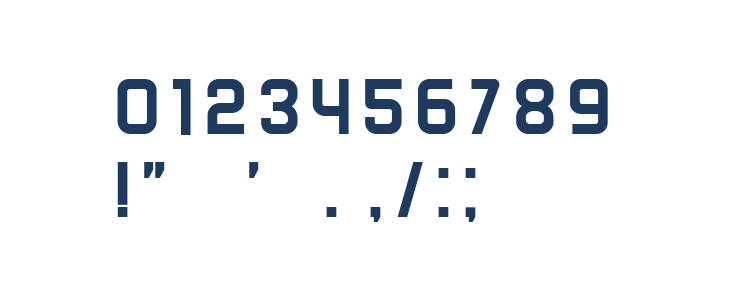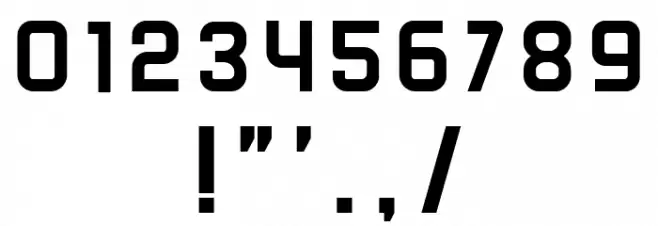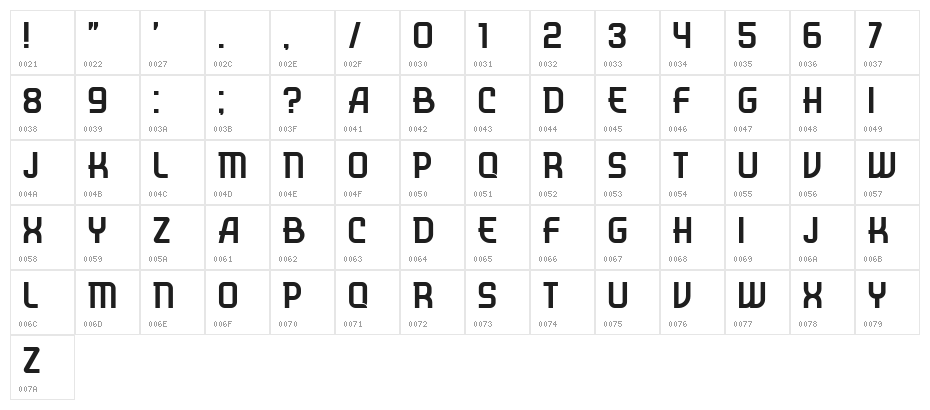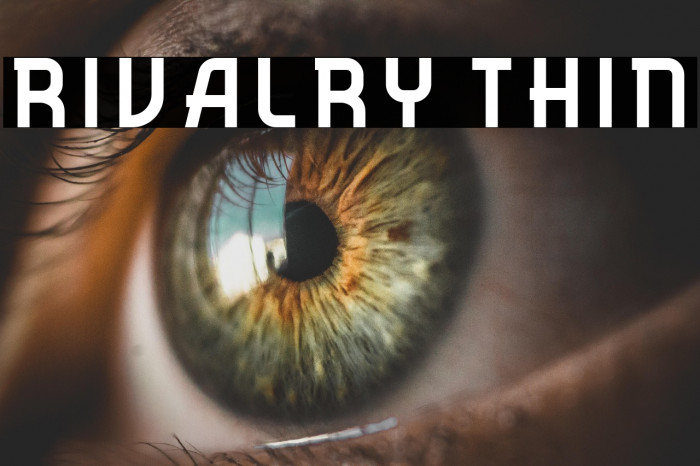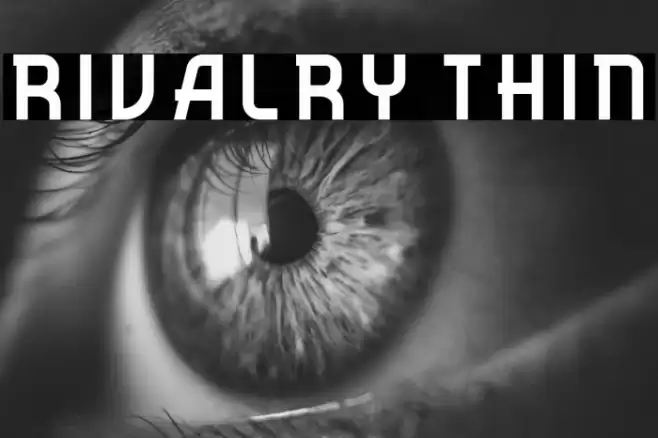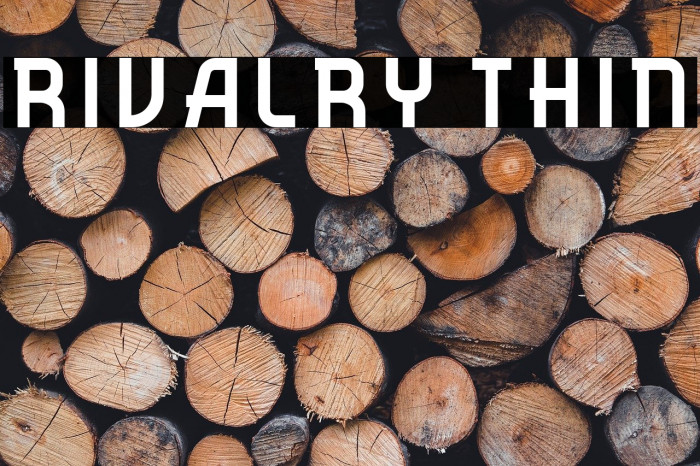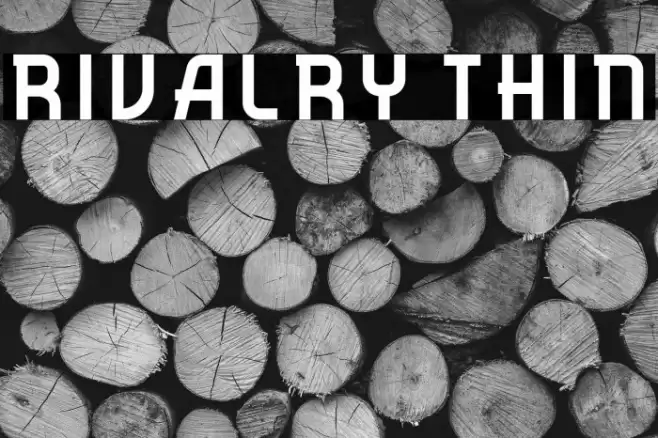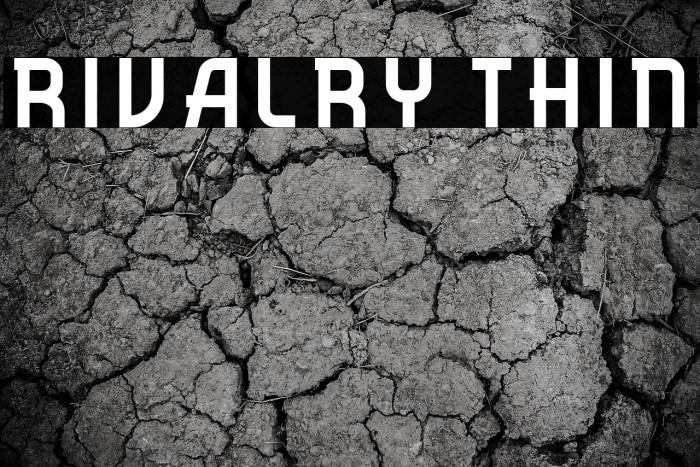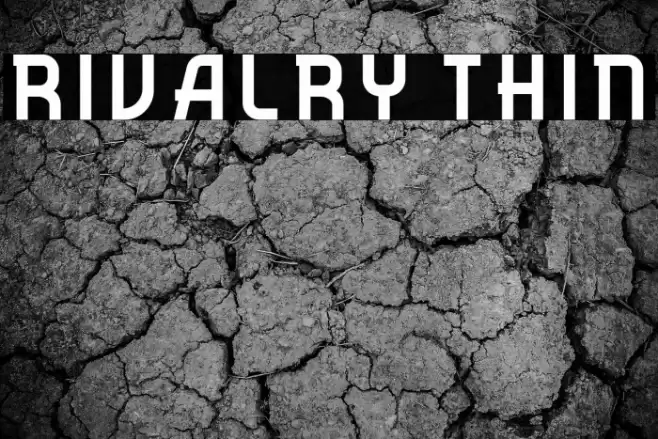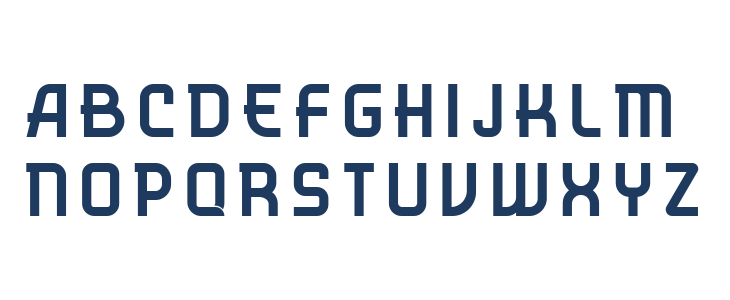
Rivalry Thin Font
Rivalry Thin Description
This font features a modern, geometric design with a distinct, futuristic appeal. The characters are constructed with clean, straight lines and sharp angles, giving it a structured and technical appearance. The uppercase and lowercase letters maintain a consistent height, contributing to a uniform and cohesive look. The numerals are designed to match the letterforms, ensuring a seamless integration in any text. Special characters are included, maintaining the same stylistic elements. The overall design is sleek and minimalistic, making it suitable for contemporary projects.
| Use Case | Headlines, Logos, Digital Interfaces |
| Proposed Projects | Ideal for technology branding, modern advertising, digital interfaces, and futuristic design projects. |